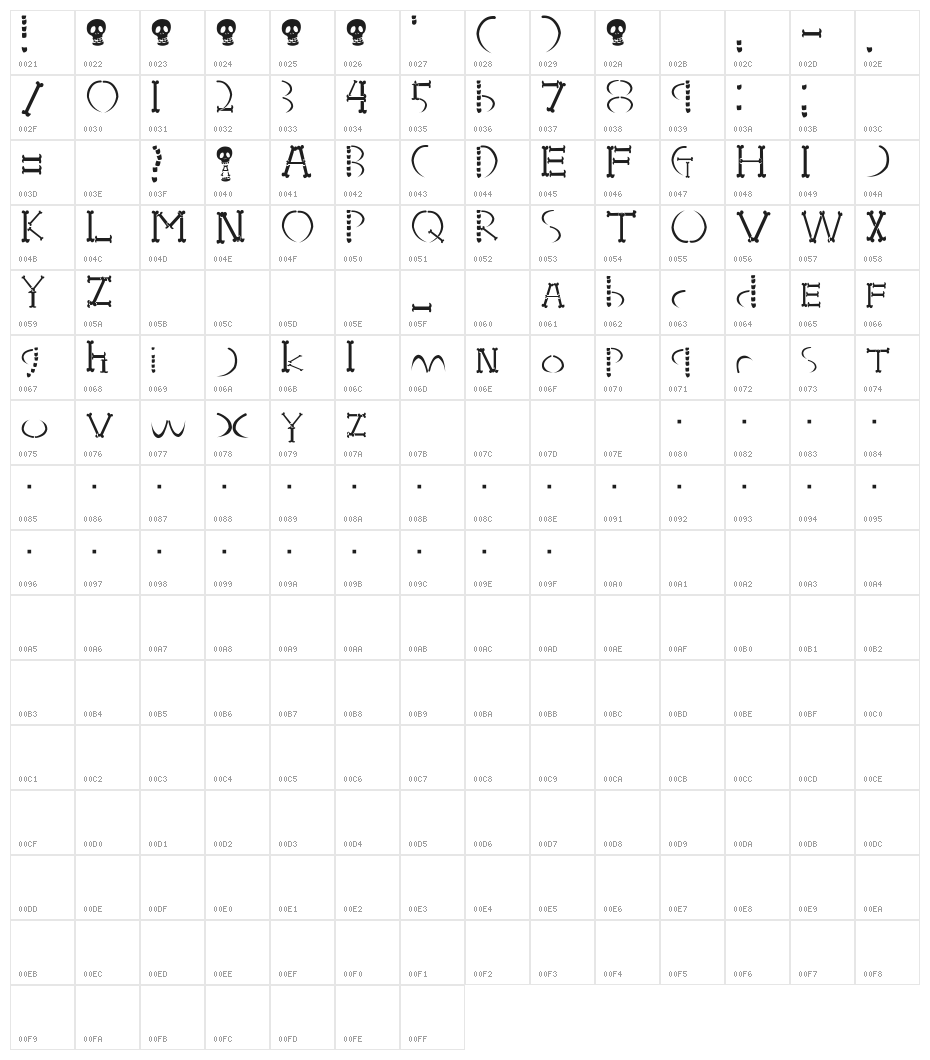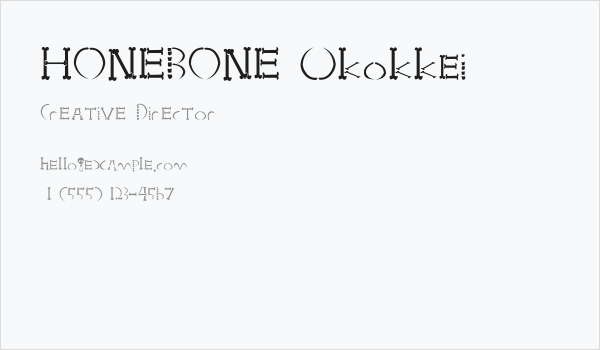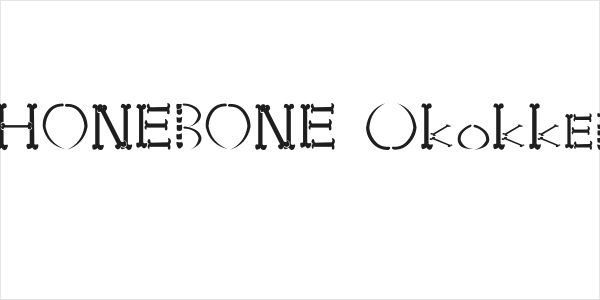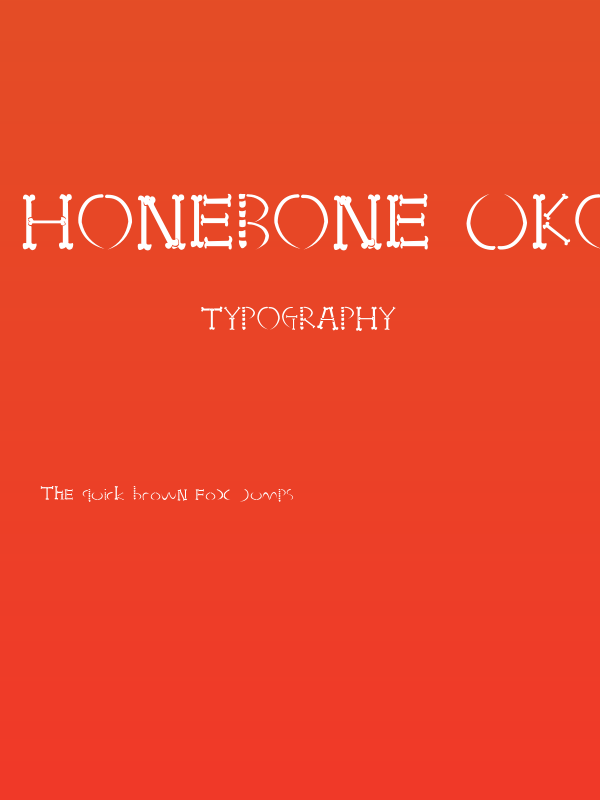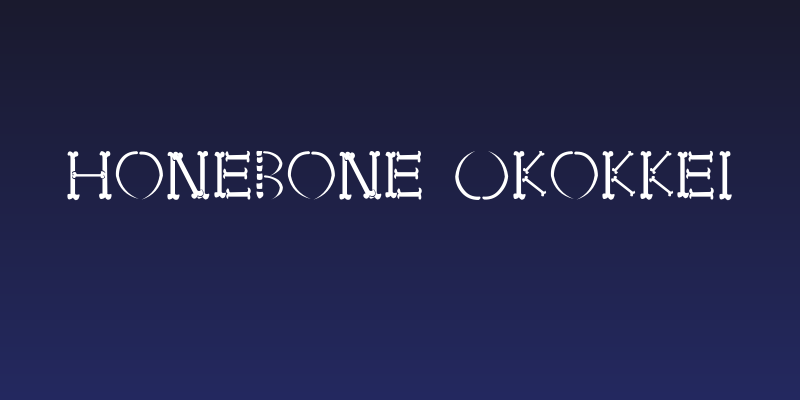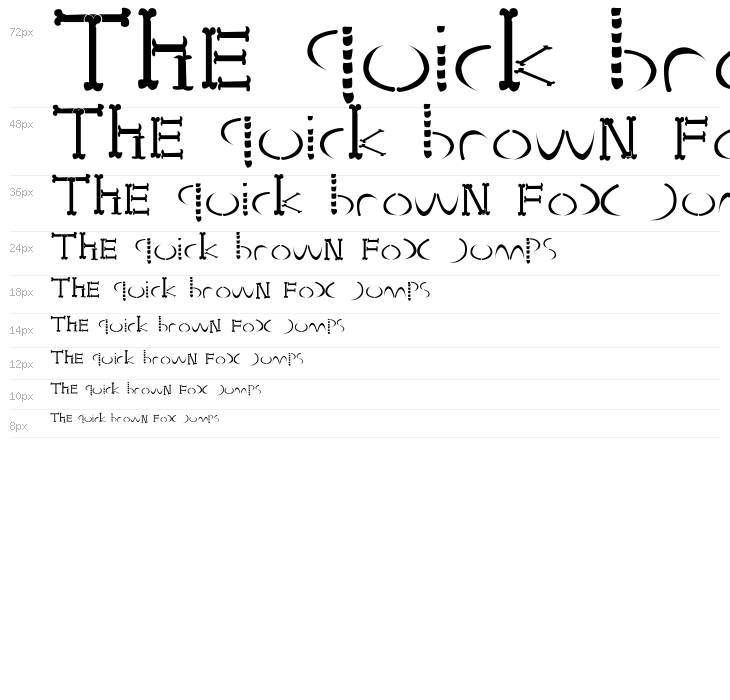
HONEBONE Ukokkei Font
HONEBONE Ukokkei Description
This font features a playful and spooky design, incorporating elements that resemble bones and skeletons. Each character is crafted with a unique style that mimics the structure of bones, giving it a distinctive and eerie appearance. The uppercase and lowercase letters maintain a consistent theme, with strokes that vary in thickness to create a skeletal effect. Numbers and special characters follow the same design principles, adding to the overall cohesive look. The font's decorative nature makes it ideal for Halloween-themed projects or any design that requires a touch of the macabre.
| Use Case | Headlines, Logos, Themed Designs |
| Proposed Projects | Ideal for Halloween invitations, horror movie posters, themed party decorations, and any project needing a spooky touch. |